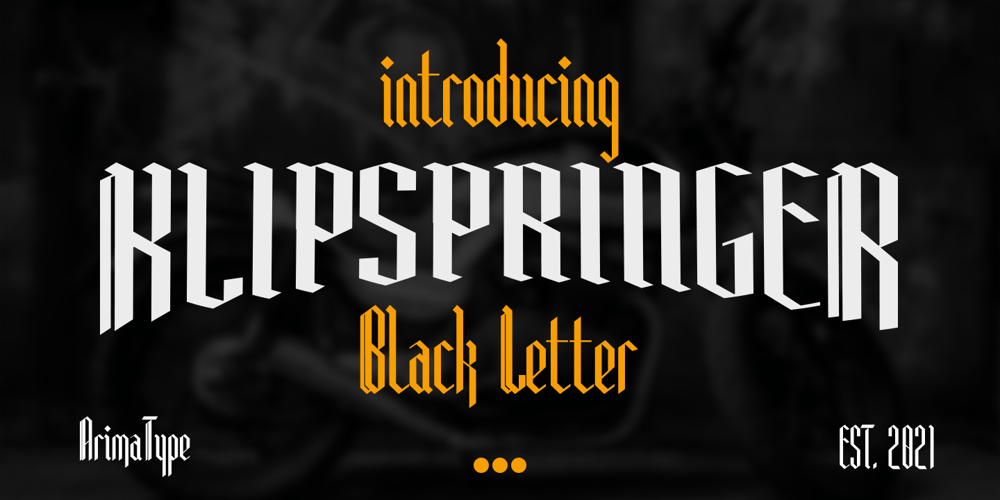
Klipspringer Font Family was designed by Amri Mauludin and published by ArimaType. Klipspringer contains 1 styles and family package options. Klipspringer is a highly detailed blackletter font. This font is PUA encoded which means you can access all of the glyphs and swashes with ease! Add it confidently to your favorite creations and let yourself be amazed by the outcome generated. If you have questions, please contact us at arimatype@gmail.com